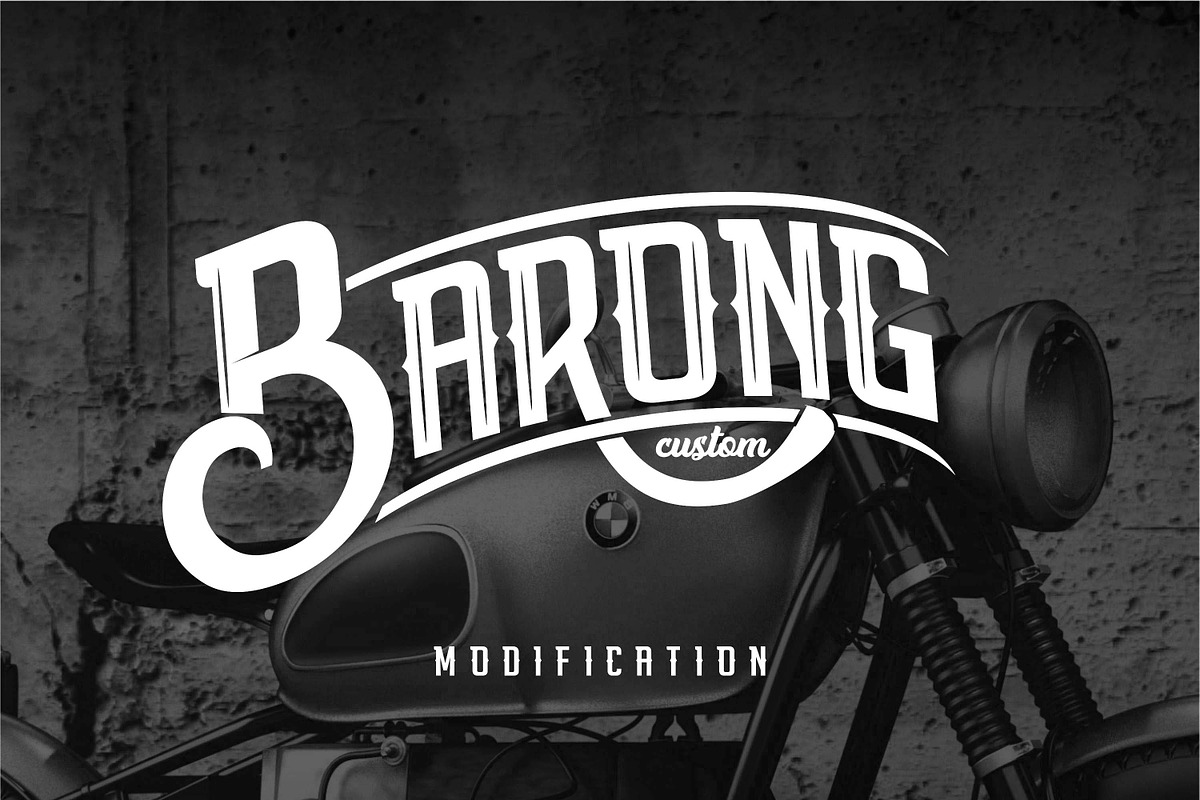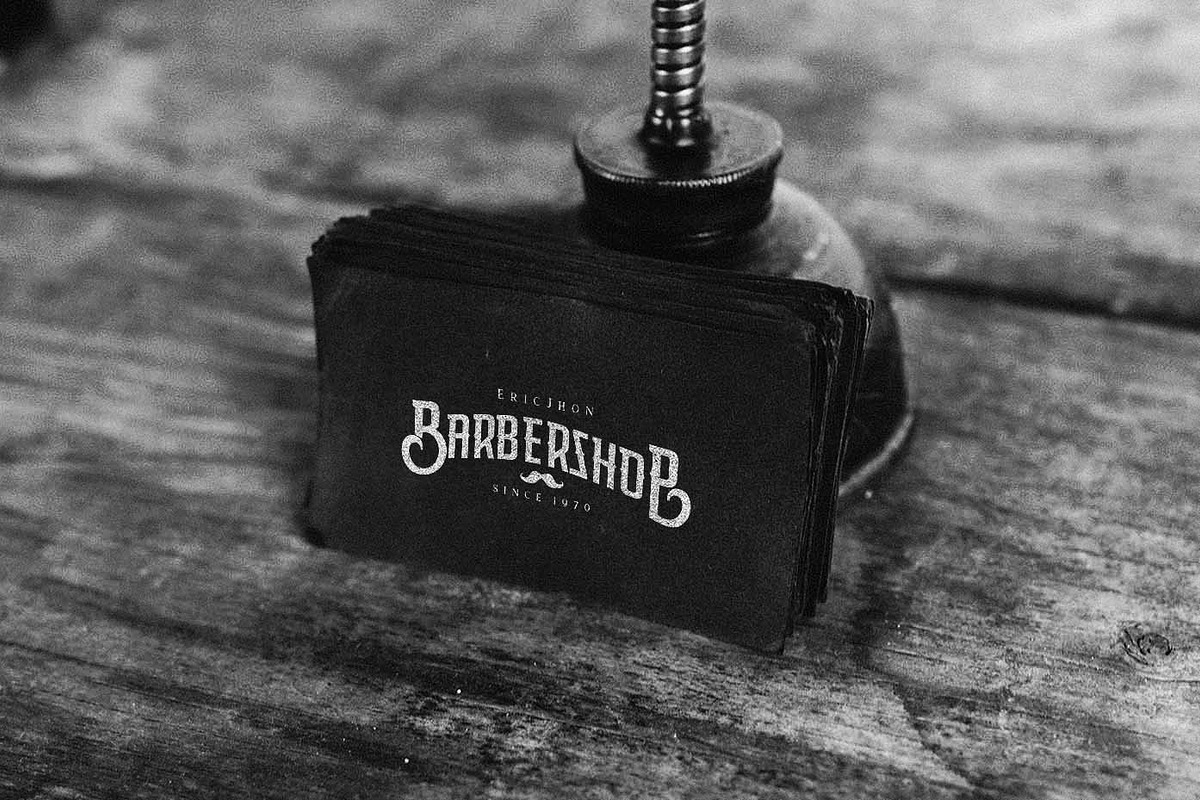
Moge Logo Font
How are you guys ? I'm sure it's very good! Introduce, this is our product with the name MOGE Font. MOGE is a concept of touch of strength, retro and modern.
MOGE is great if used on: Car / Motorcycle Workshop, Barbershop Logo, Shirt Brand Logo, and various kinds of products that require a touch of strength, retro and modern.